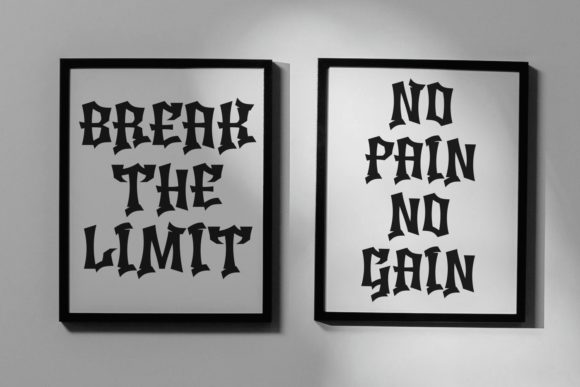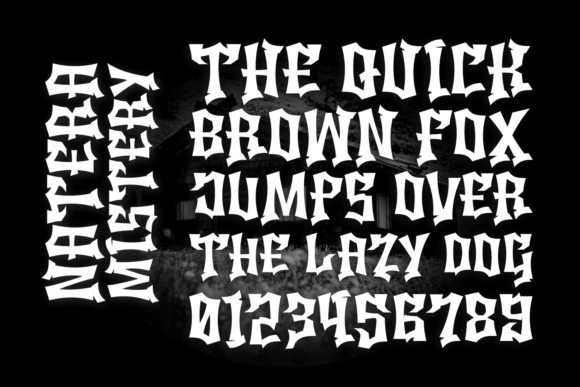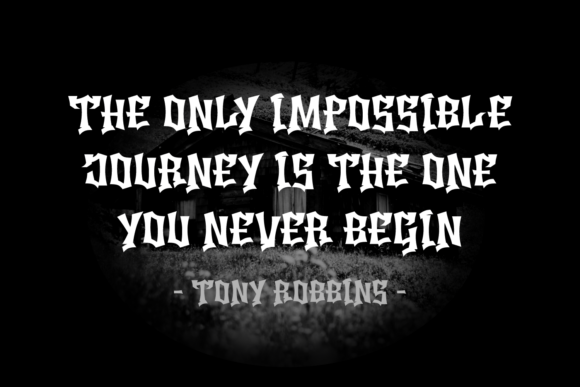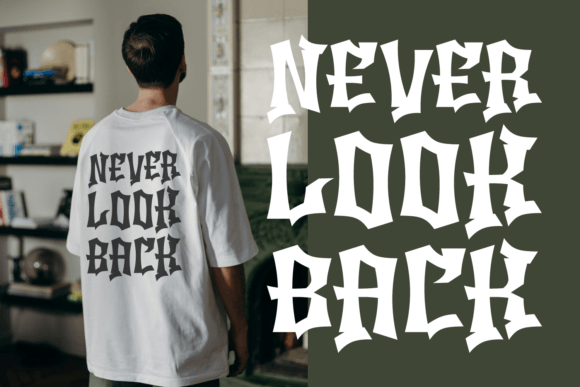
Introduction to Natera Mistery Font
As you sit at your desk, surrounded by scattered papers and half-finished projects, you stumble upon a spark of inspiration. A font catches your eye – its intricate, old-world charm and mysterious allure beckoning you to explore its secrets. This is the magic of the Natera Mistery Font, a vintage blackletter font that adds an air of mystique to any creative project.
Designers know that finding the right font can make all the difference in bringing a project to life. With its high-quality design and transparent background, the Natera Mistery Font is a valuable resource for anyone seeking to add a touch of gothic, historic, or enchanted feel to their work. Whether you’re creating a logo, book cover, or other design elements, this font is sure to captivate your audience and leave a lasting impression.
Key Features of Natera Mistery Font
- Unique, mysterious design ideal for creative projects, adding an air of intrigue and sophistication.
- High-quality font with a transparent background, allowing for seamless integration into various design elements.
- Features a clean, elegant design with subtle texture and detail, making it perfect for use in logo design, branding, and editorial content.
- Supports a wide range of languages, including Latin, Cyrillic, and Greek, making it a versatile design tool.
Honest Review: Natera Mistery Font
I recently had the opportunity to work with the Natera Mistery Font, and I must say it’s been a game-changer for my creative projects. ✨ The font’s unique, mystical vibe has added a touch of sophistication to my designs, and its high quality has made it a reliable design resource.
One of the standout features of the Natera Mistery Font is its transparent background, which makes it incredibly versatile and easy to use. Whether I’m working on a digital design or a print project, this font has been a dream to work with.
- Pros:
- Unique and stylish design
- High-quality typography
- Cons:
- May not be suitable for all design projects
- Could be overwhelming in large quantities
Overall, I’m thoroughly impressed with the Natera Mistery Font, and I would highly recommend it to anyone looking for a high-quality design resource. While it may have some limitations, the benefits far outweigh the drawbacks.
Tips for Getting the Most Out of Natera Mistery Font
Experiment with different font sizes, colors, and combinations to achieve the desired design effect. You can also use the font in conjunction with other design resources to create a unique look.
The Natera Mistery Font is ideal for creative projects that require a mysterious and intriguing design. Some common use cases include:
- Social media graphics and posters
- Brand identity and marketing materials